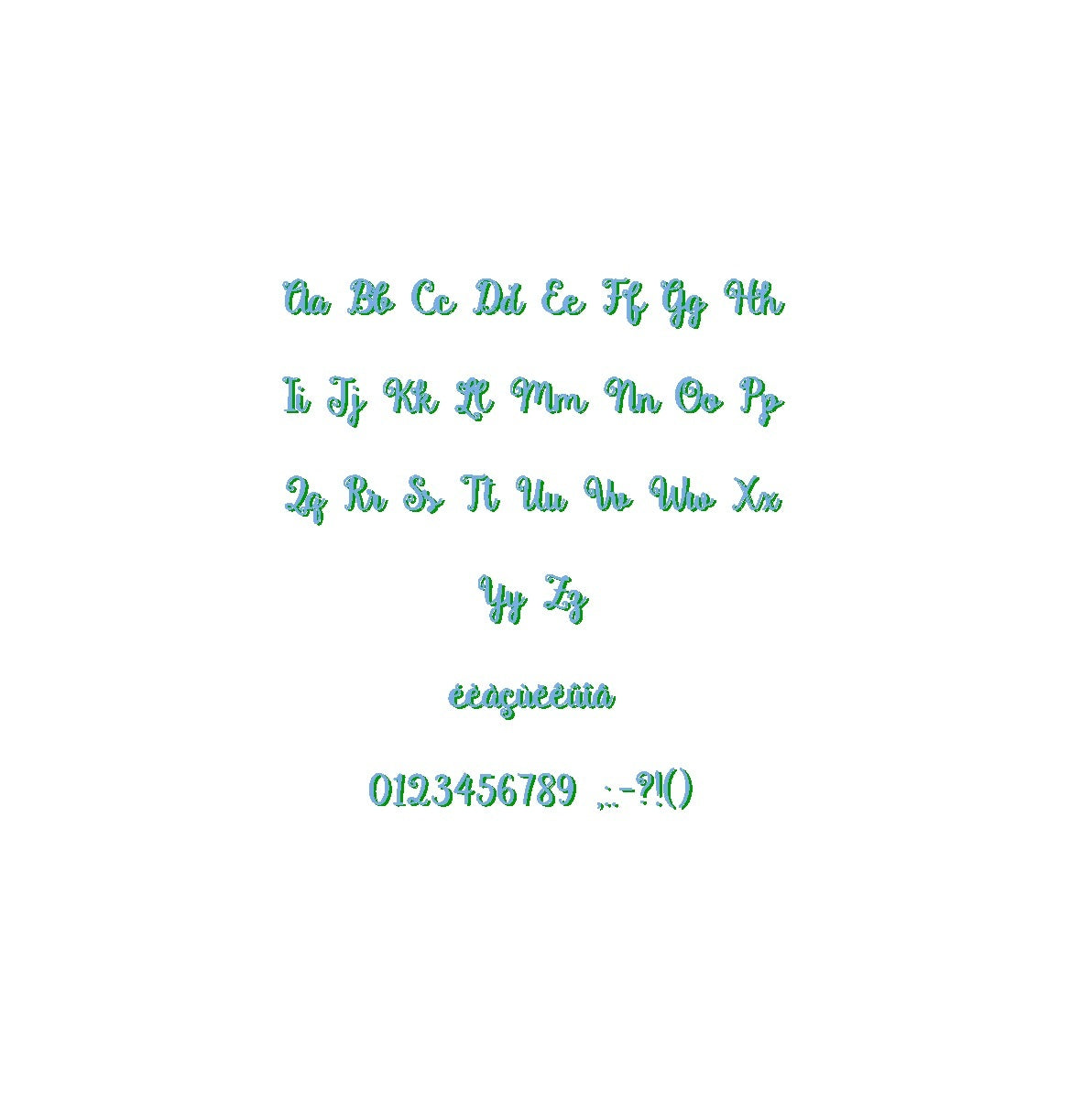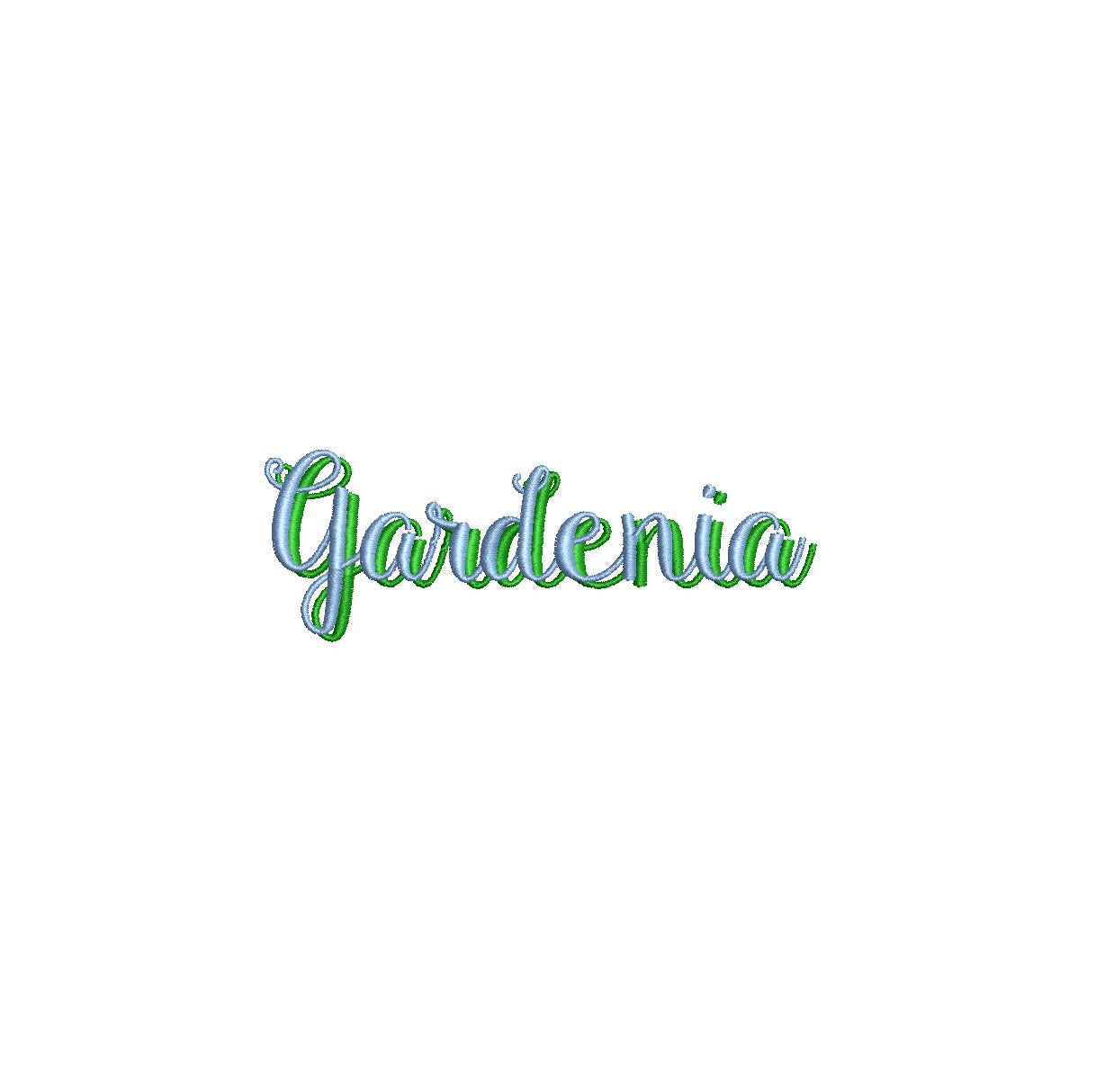
Elevate your designs with the captivating Gardenia Shadow ESA font. Fully compatible with Wilcom Studio e4.5.6 and Hatch 3 versions and up, this font adds an enchanting touch of nature-inspired elegance to your projects. The intricate shadows and graceful lines of this font create a mesmerizing visual impact that sets your designs apart. Streamline your creative process and achieve flawless results by utilizing this font with industry-leading software. Upgrade your projects with the compatibility of Gardenia Shadow ESA font and craft visuals that resonate with the beauty of the outdoors. Embrace creativity and natural charm for your design journey today!